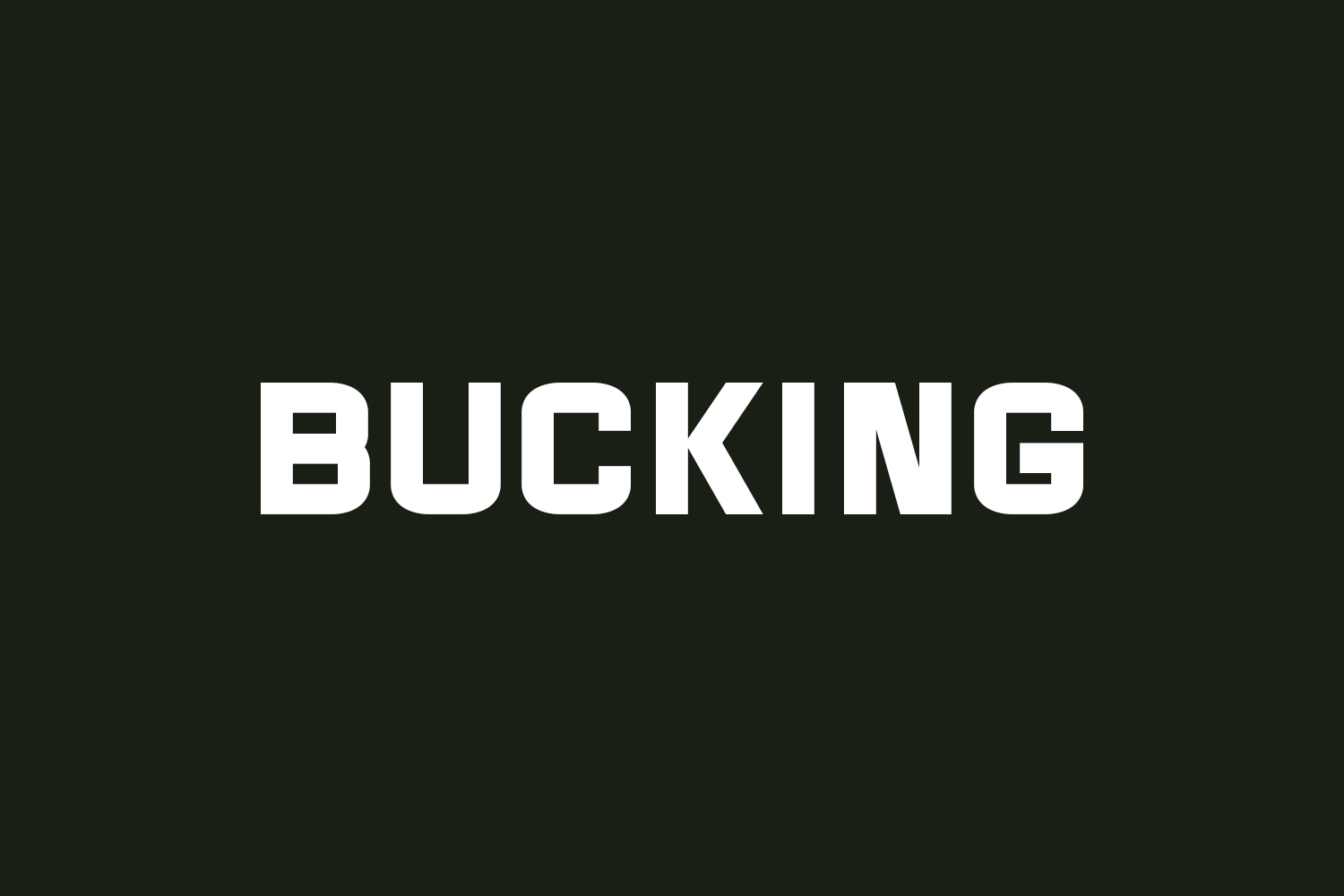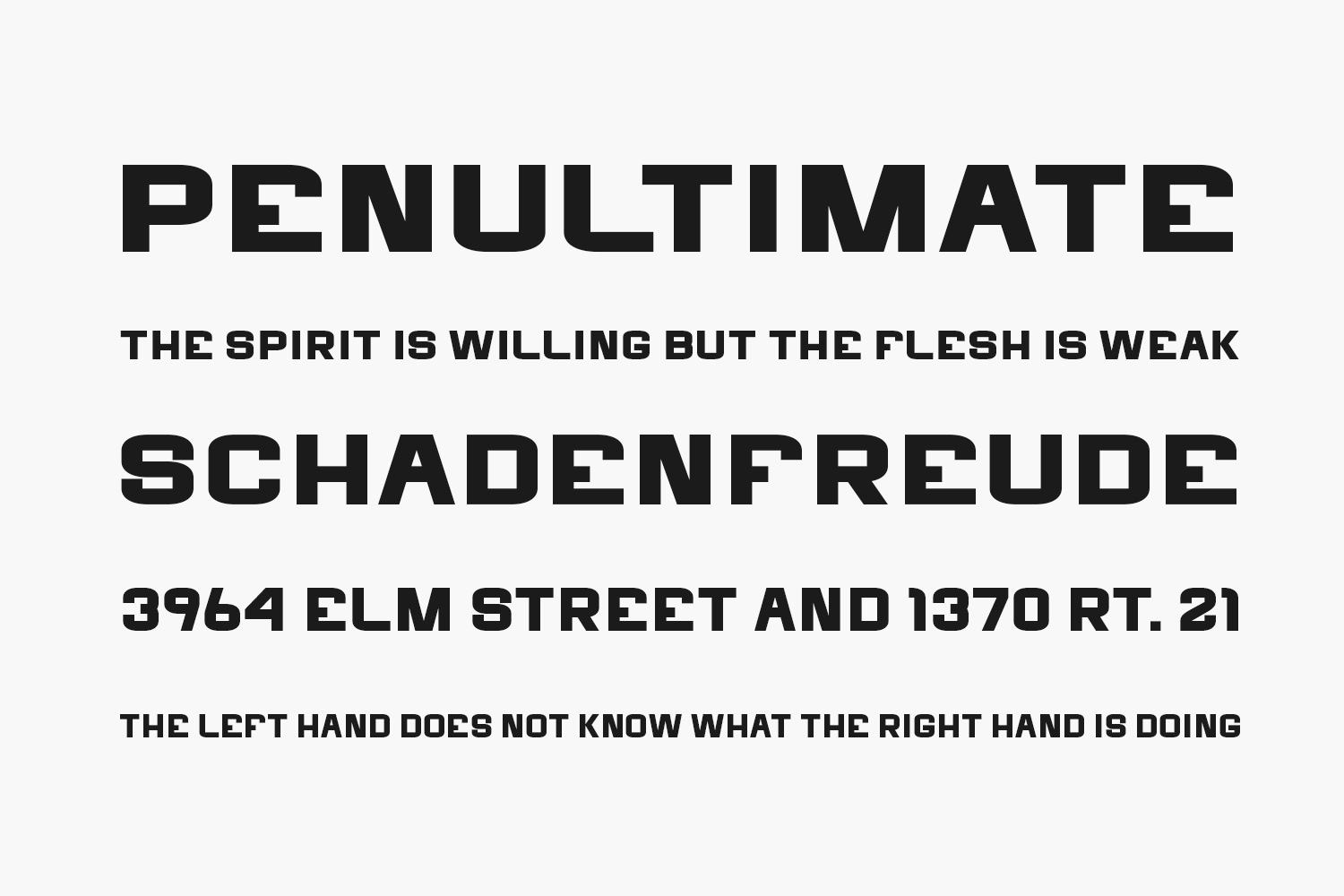
Embrace the essence of modernity with Bucking Free Font, an innovative sans-serif font that exudes class and unparalleled legibility. Whether applied to large displays or subtle body text, Bucking stands out effortlessly in both contexts, making it a versatile choice for any design endeavor. Elevate your typographic aesthetics with the timeless charm and contemporary allure of Bucking. Bucking Free Font was designed by BrandSemut and is free for personal use only. Please purchase the full version for commercial use.